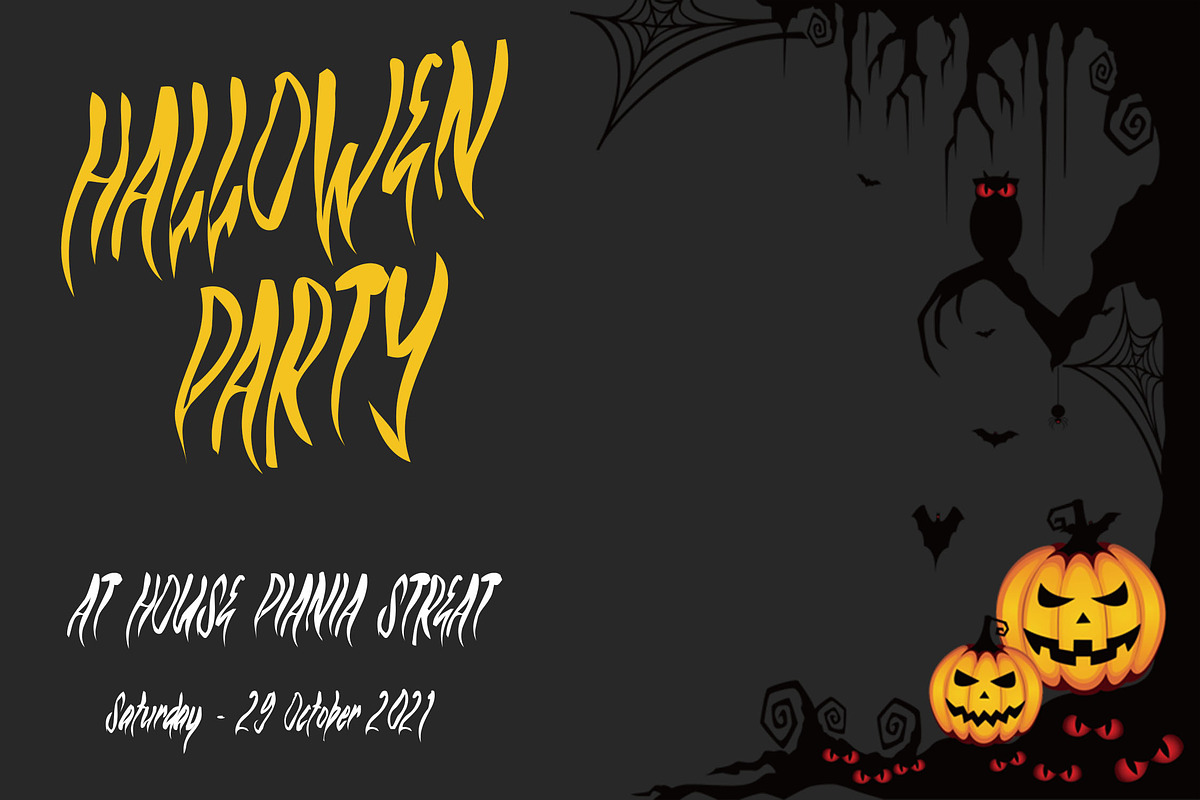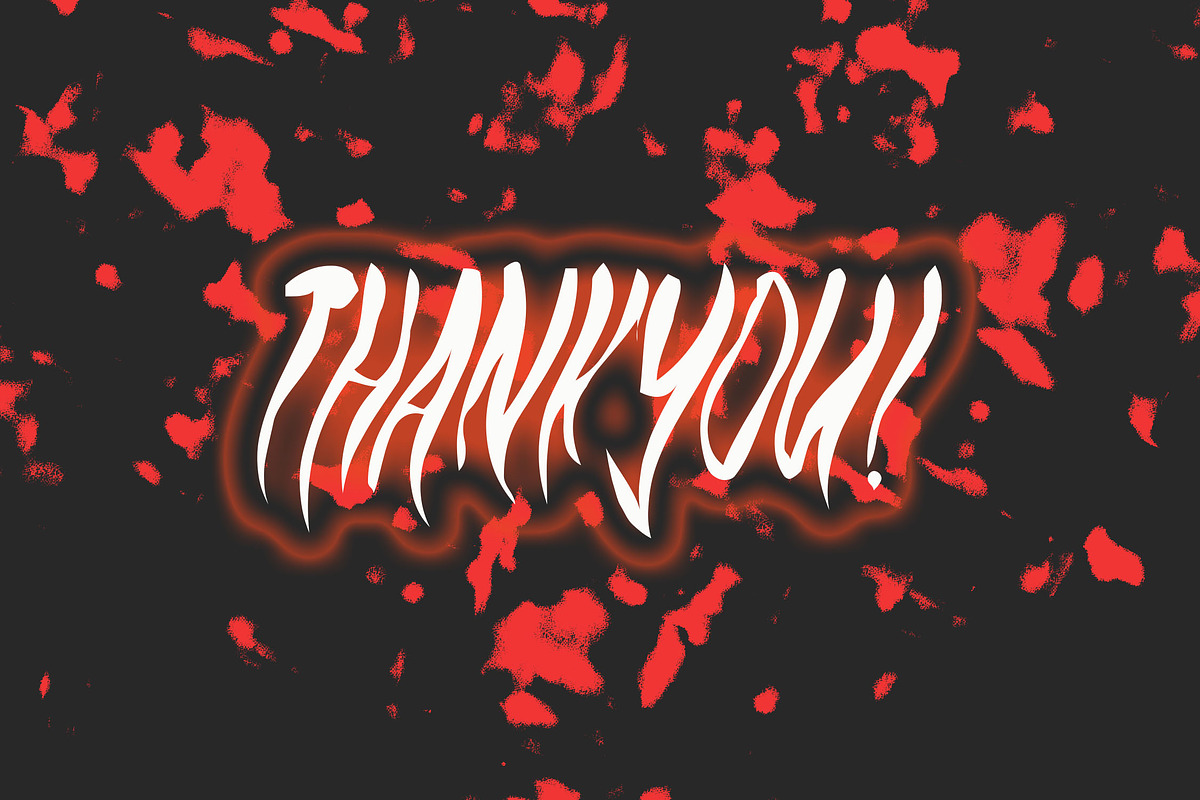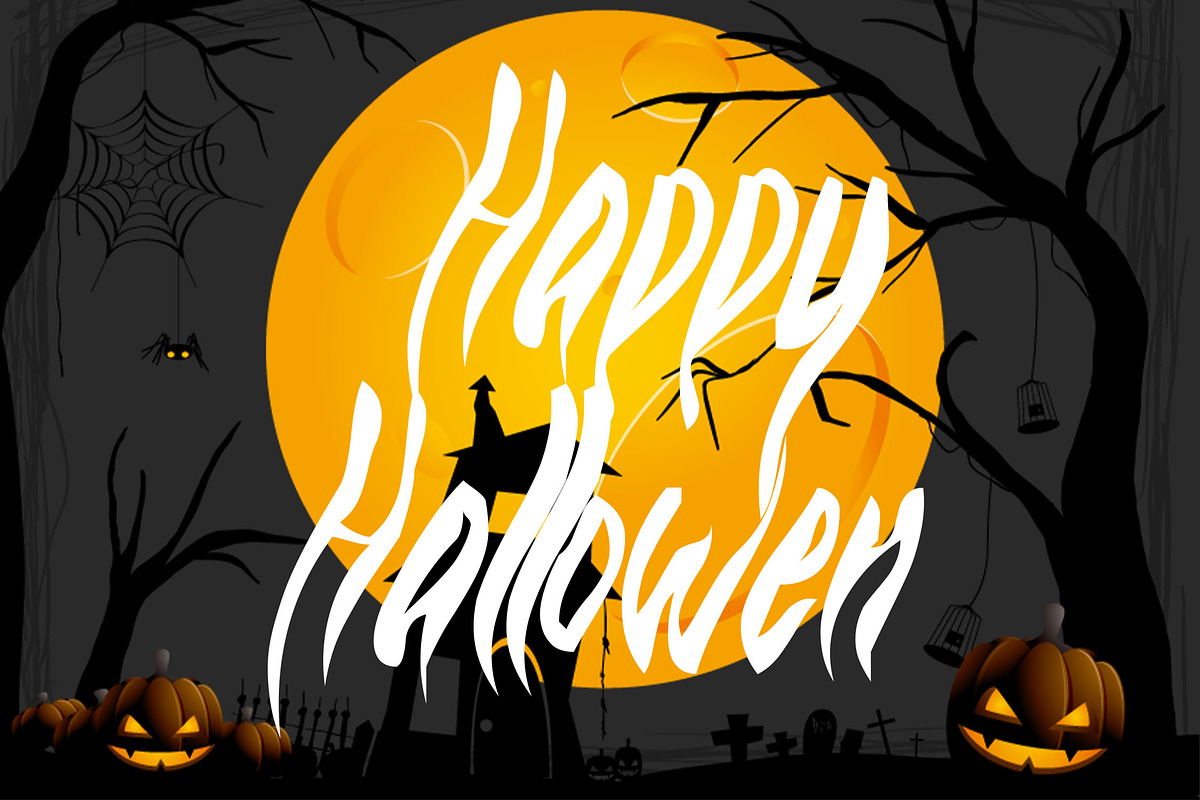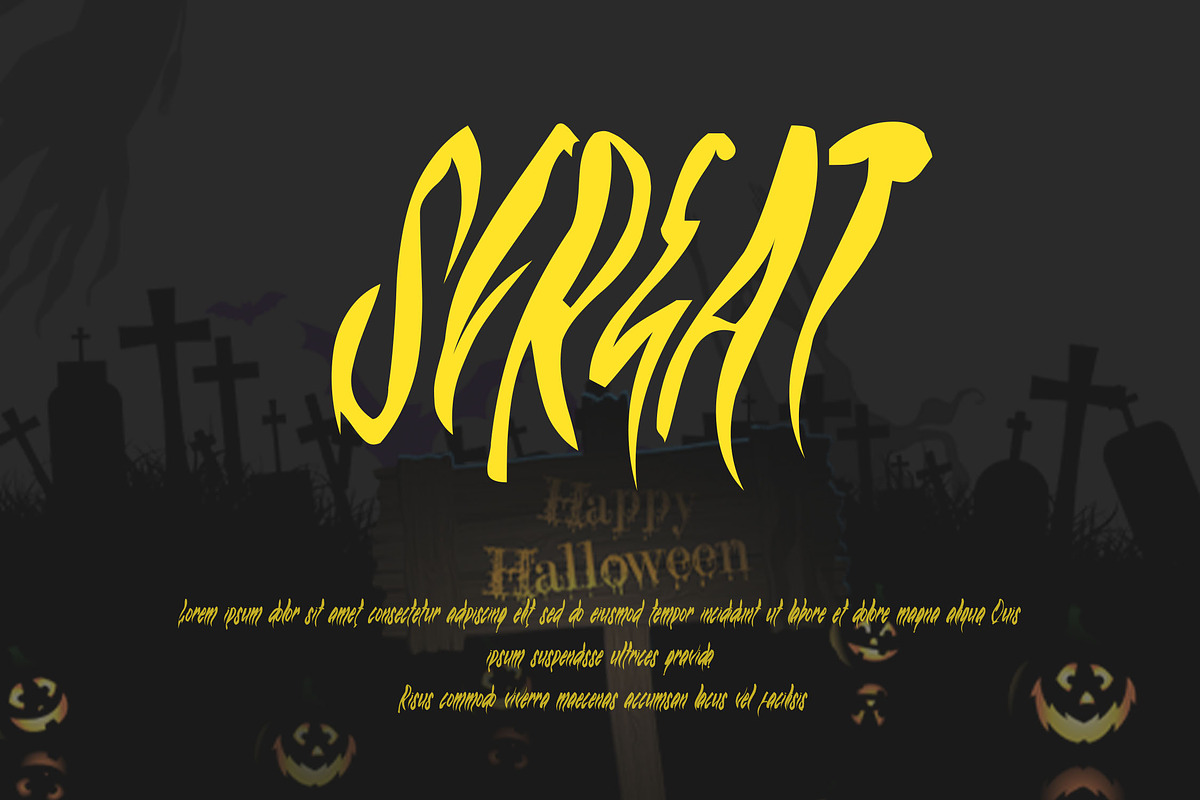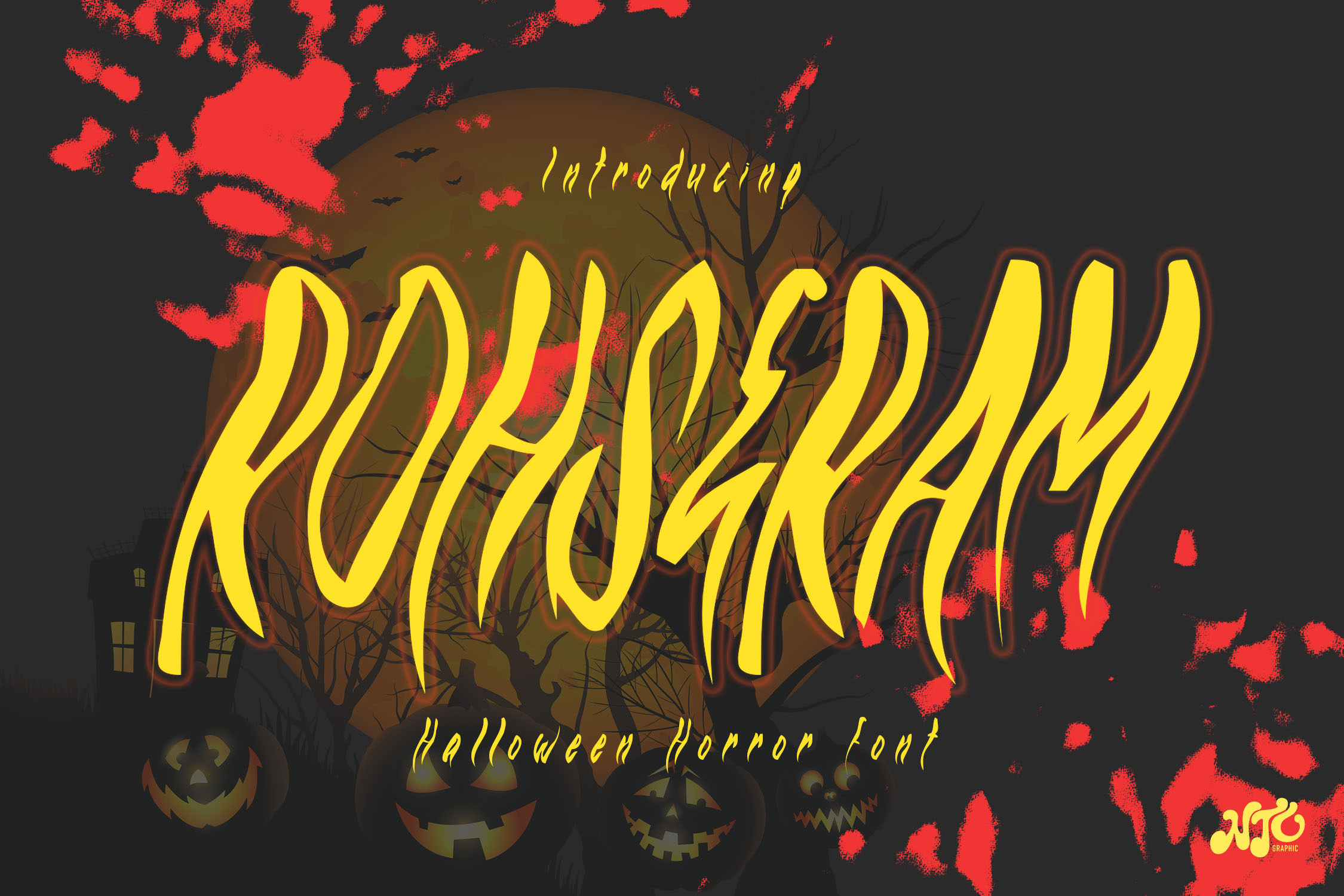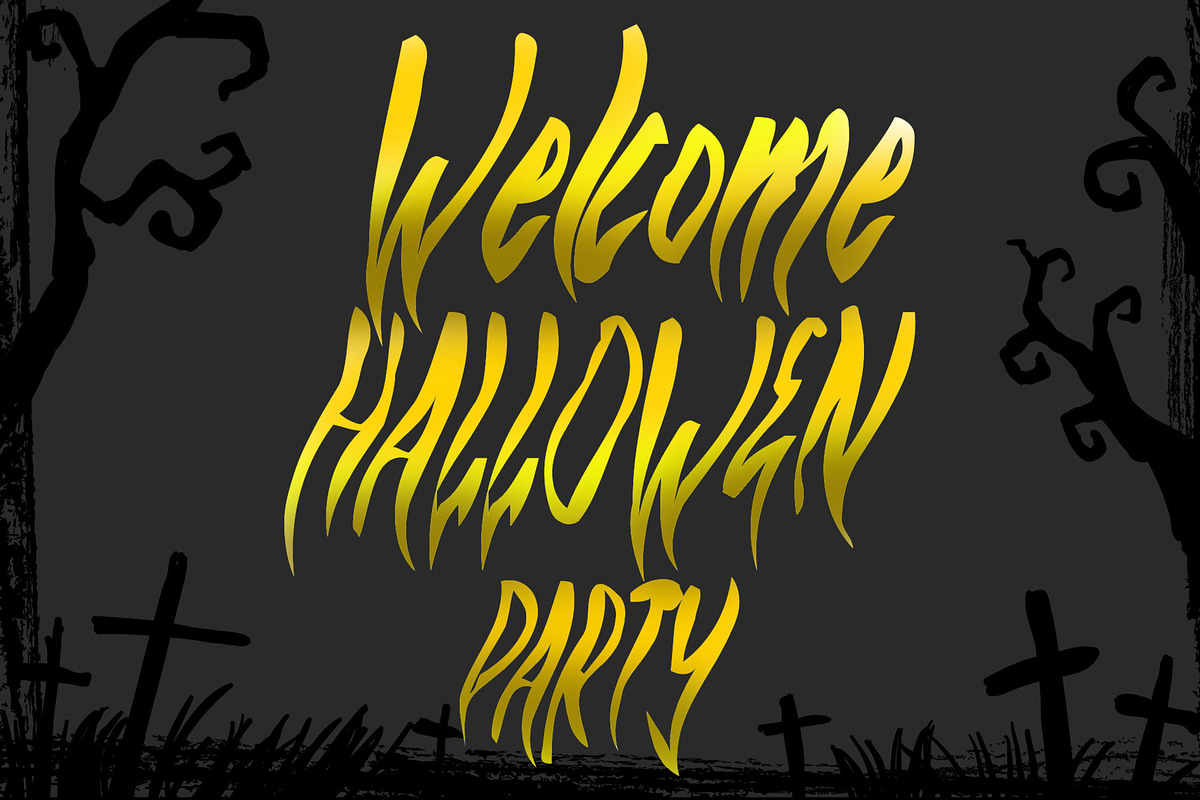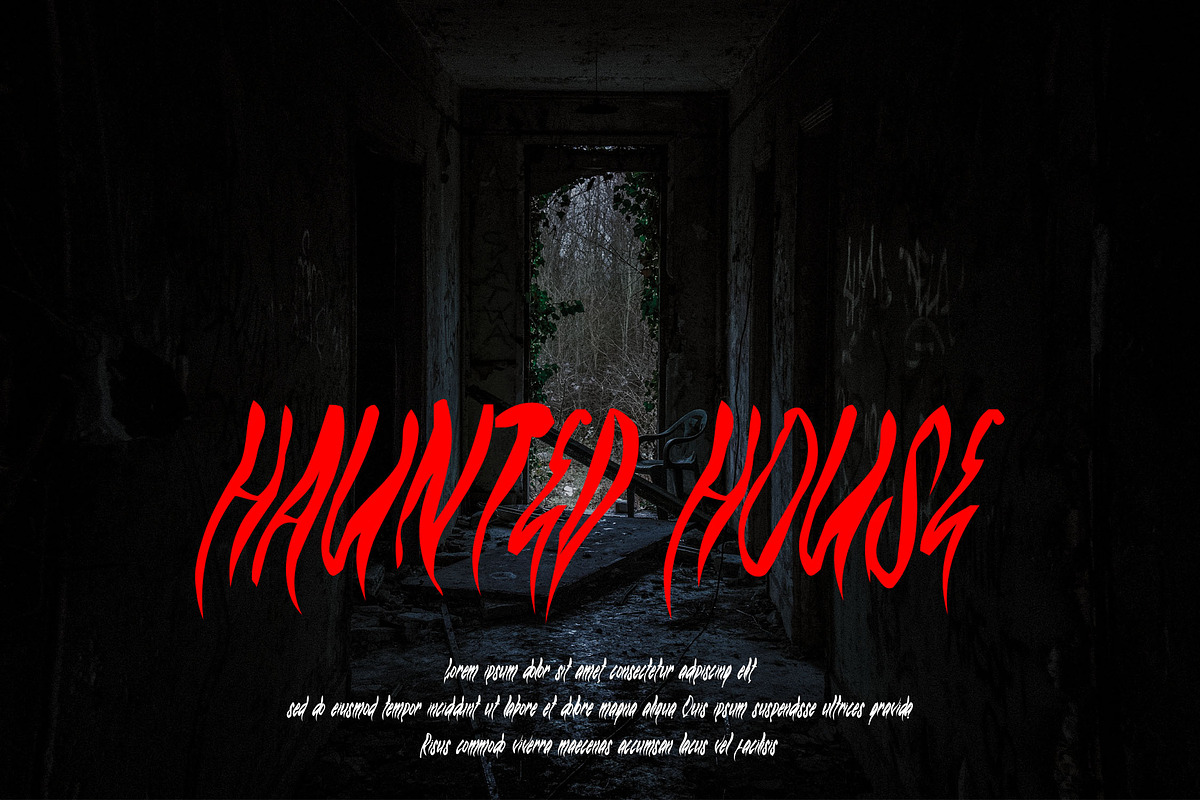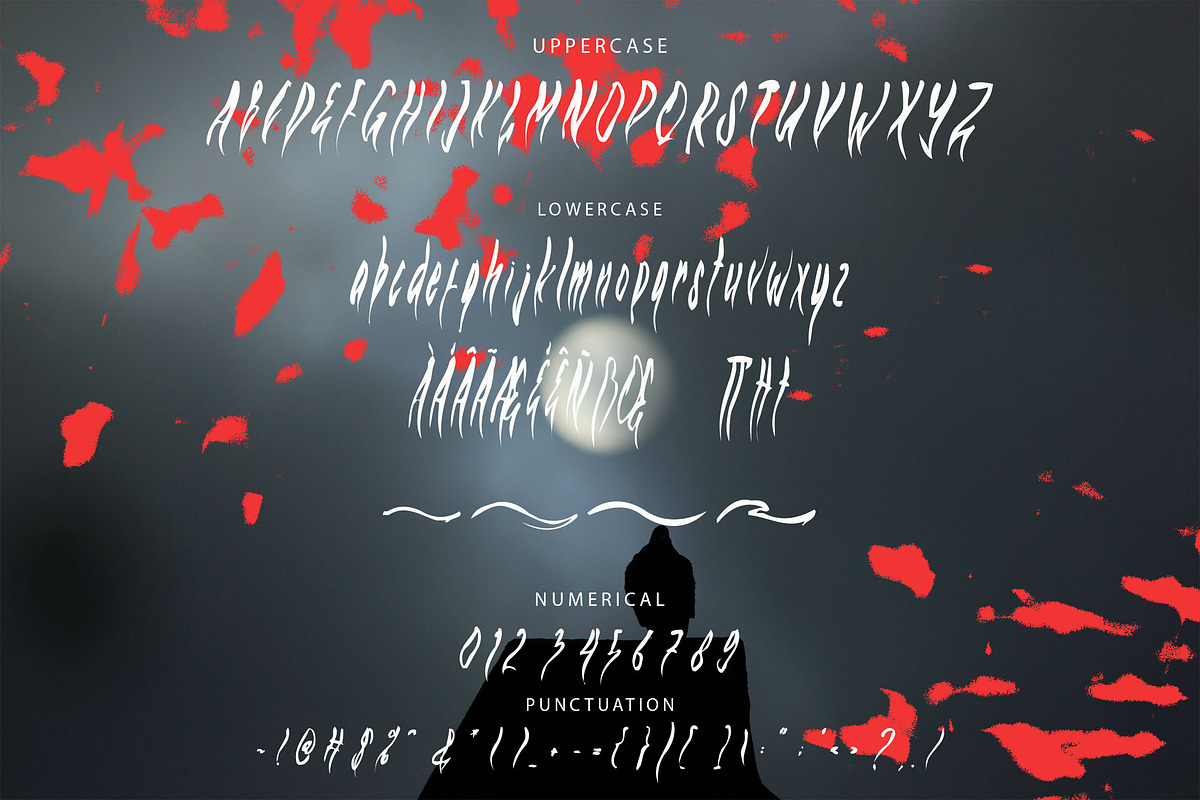
ROHSERAM - Halloween Horror Font
ROHSERAM is a horror Halloween themed font with a very unique shapes character. ROHSERAM font is perfect for Halloween card and Halloween banner designs. This font is suitable for making previews and covers, horror logo designs, shirt designs, and other horror graphic needs.
- Stylistic Alternate